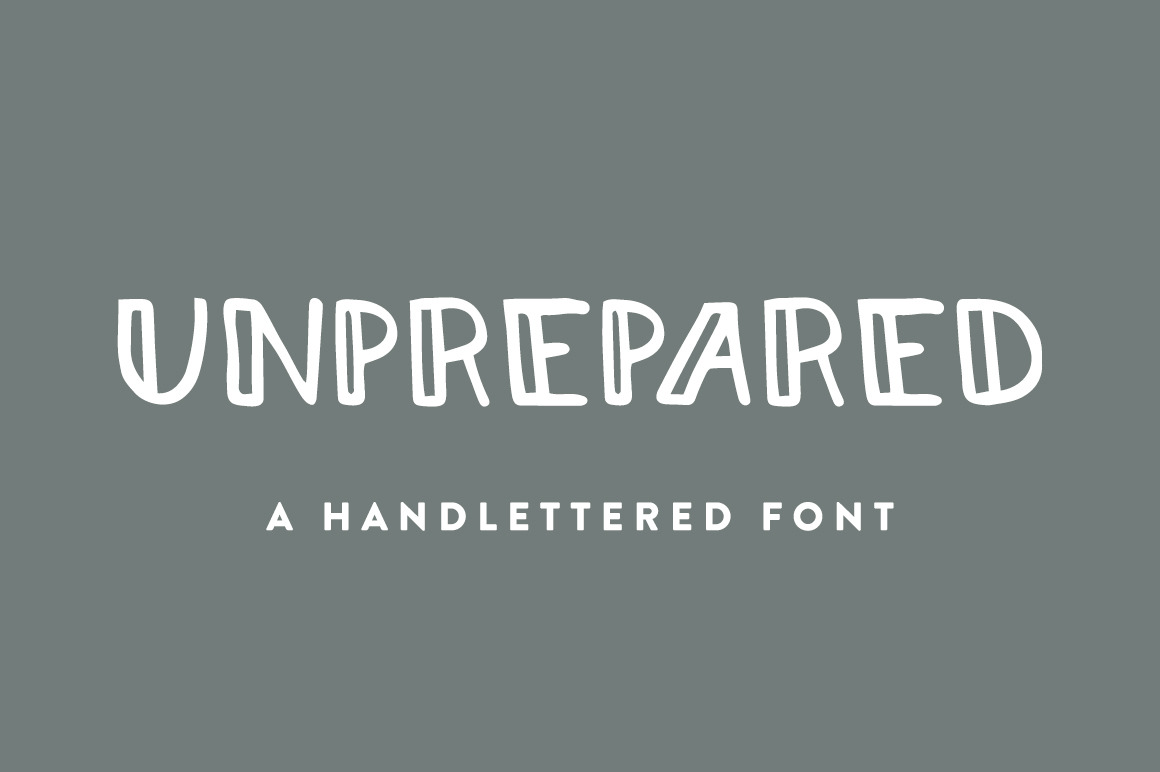
Unprepared - Hand Lettered Font
An all caps font that is hand lettered. The font is simple and all about embracing imperfections. It would be best used for social graphics, blog post titles, or for flyer designs.
Letters included: A-Z and #0- 9 and .!